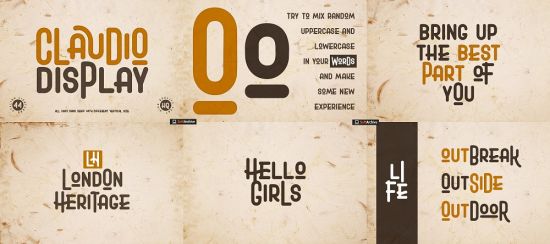
Smooth but crazy wilder, say hello to Claudio! The coolest display font with more than 40 stylish ligatures. As an all caps sans serif, Claudio has different vertical size between uppercase and lowercase. You can mix them to create something wild and eye- catching typography on your work.